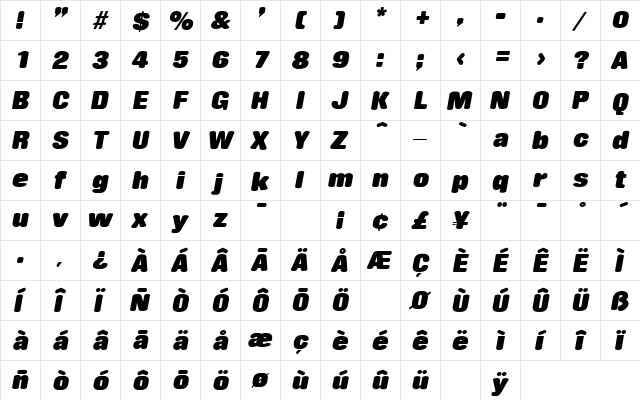
RollingStone Italic Font Preview
RollingStone Italic
Design Context for RollingStone Typeface
RollingStone offers clean, dependable letterforms without strong stylistic allegiance, making it a practical choice for designers who need flexibility. The slanted form adds forward momentum and visual energy.
Pro Tip: Use RollingStone for emphasis, pull quotes, and subheadings where its slanted energy can add rhythm to the layout.